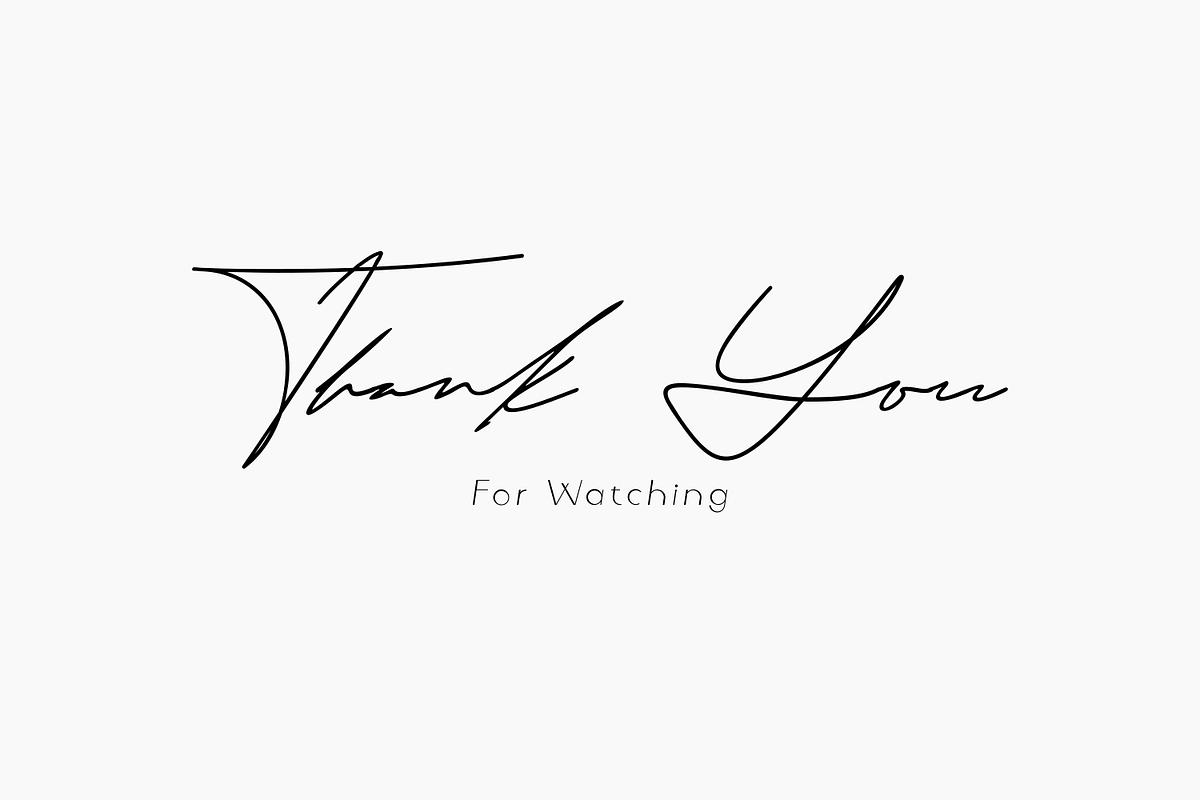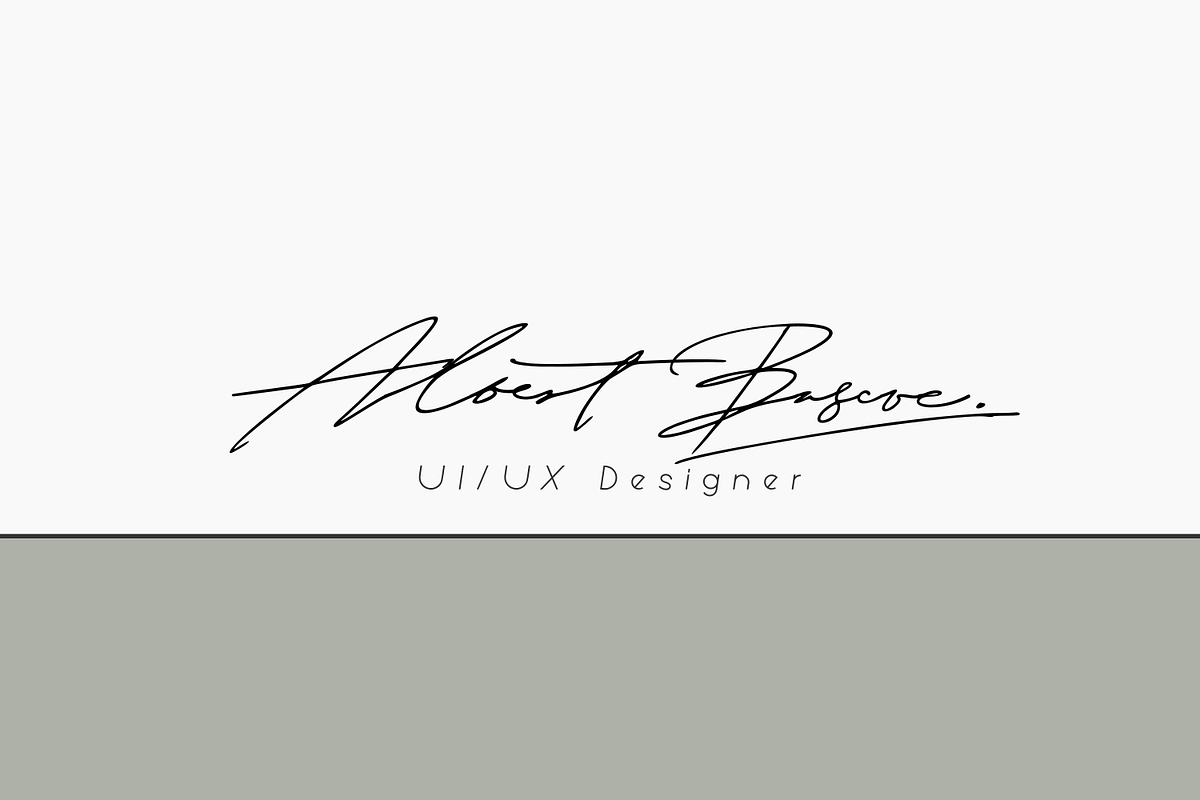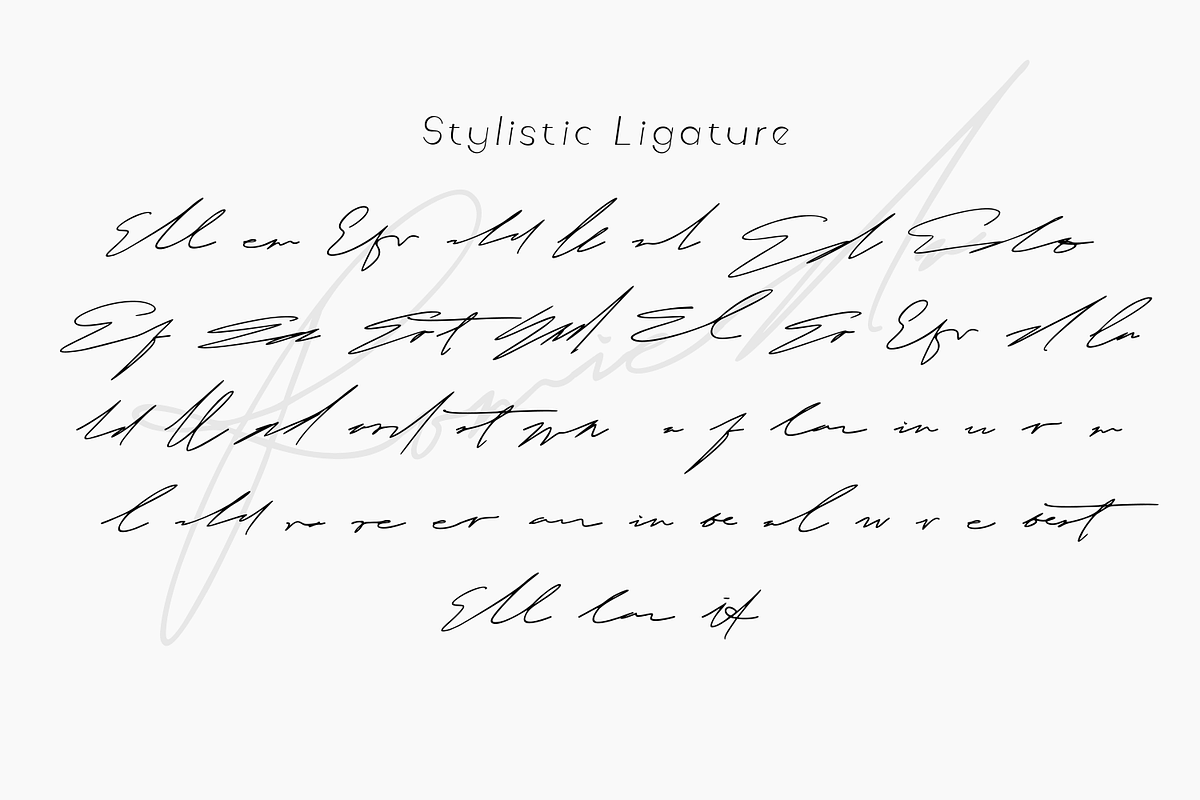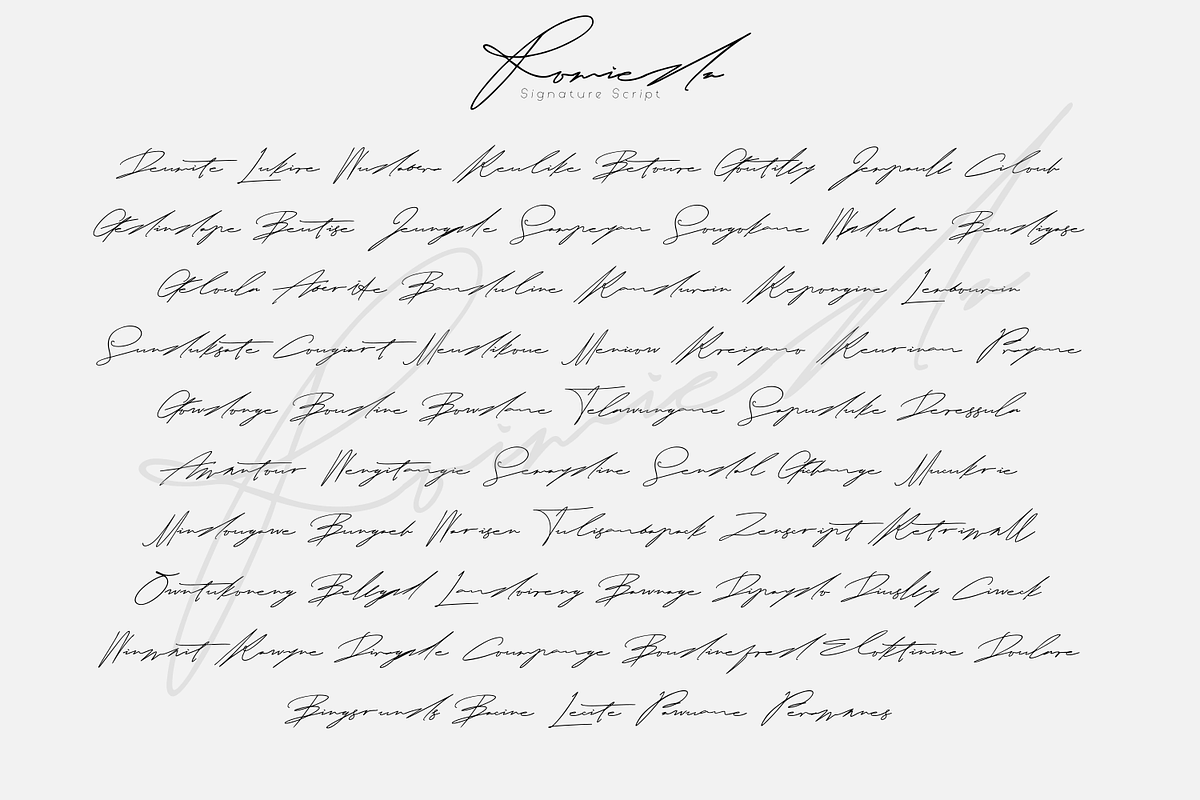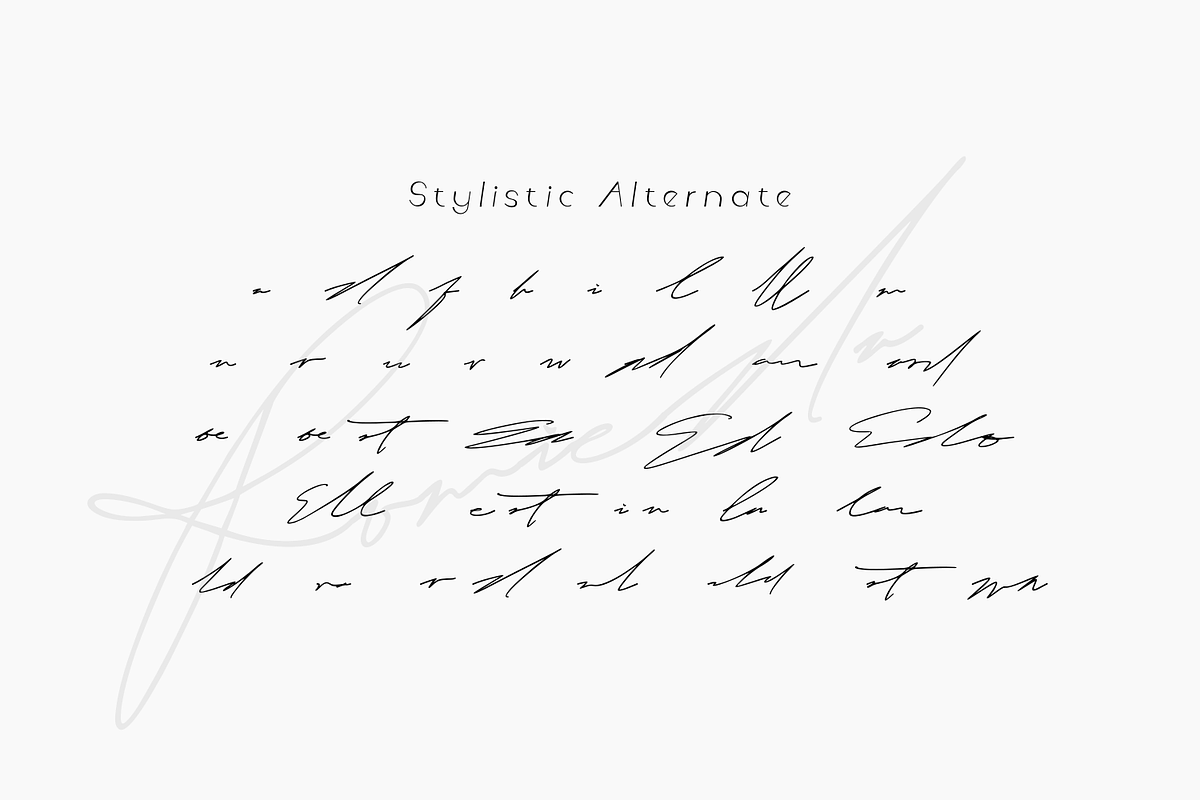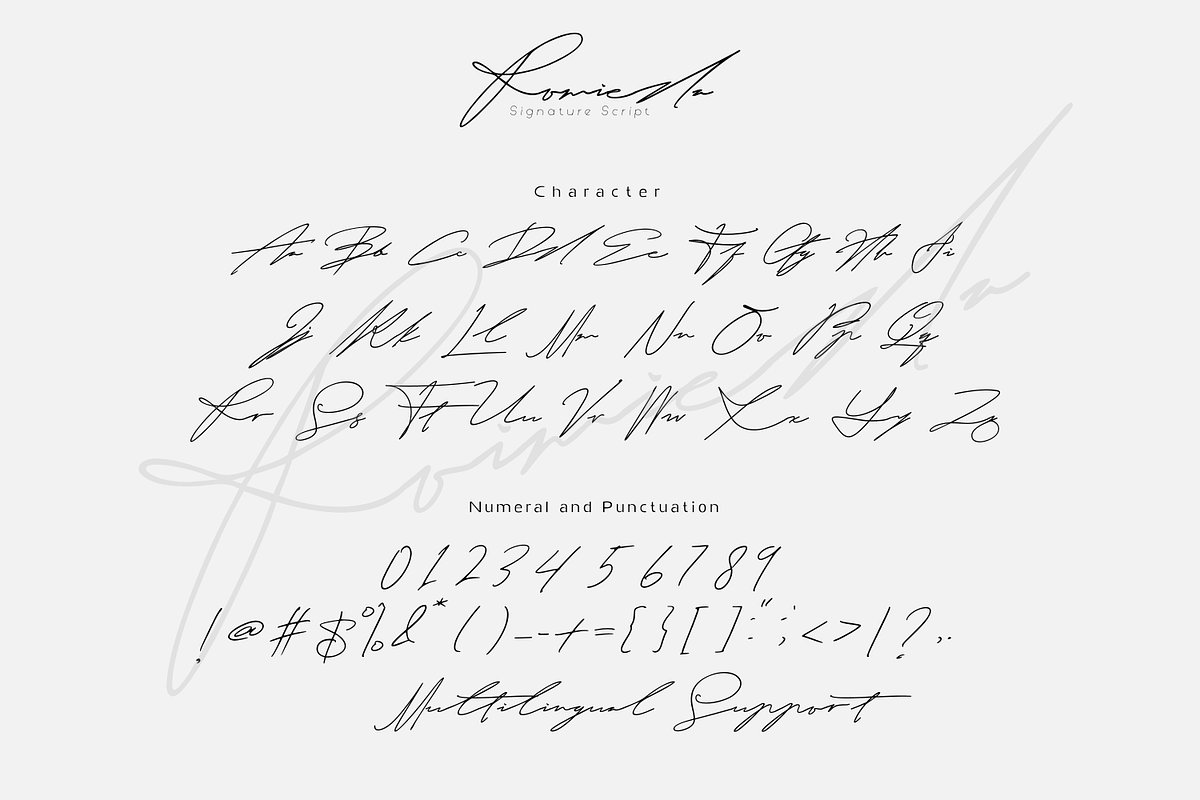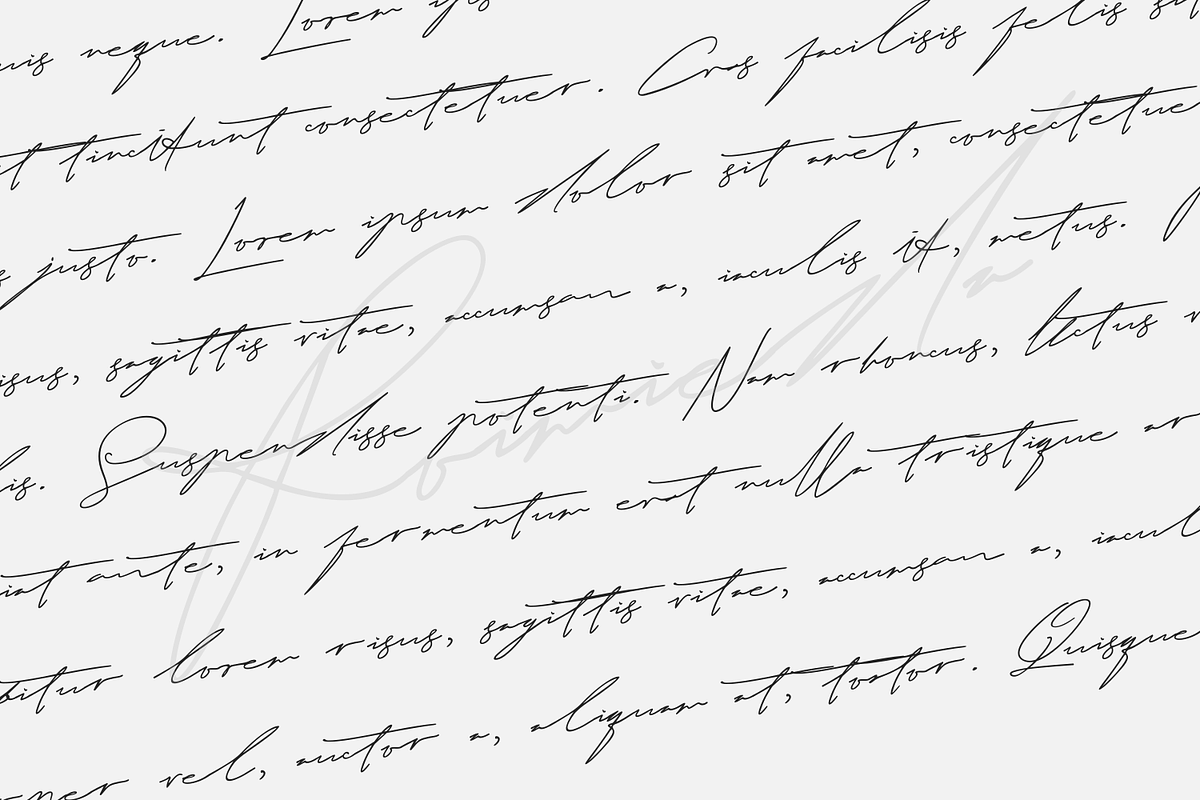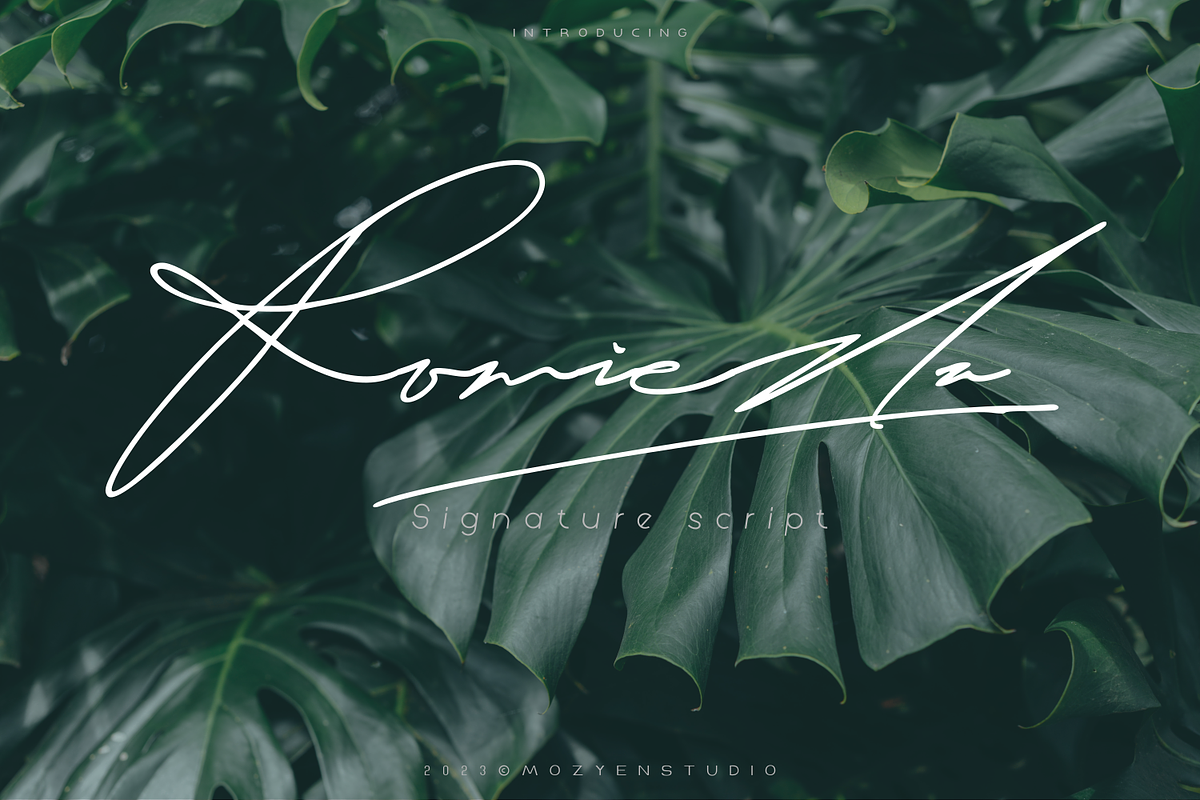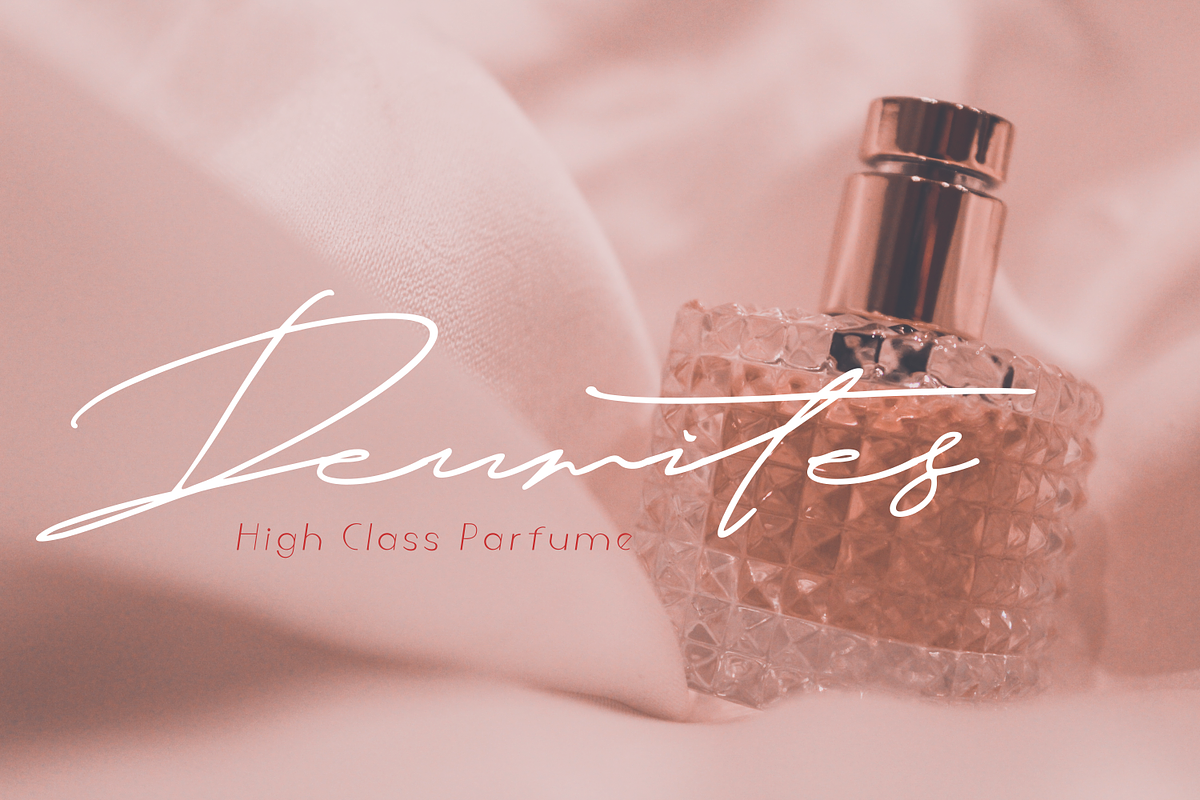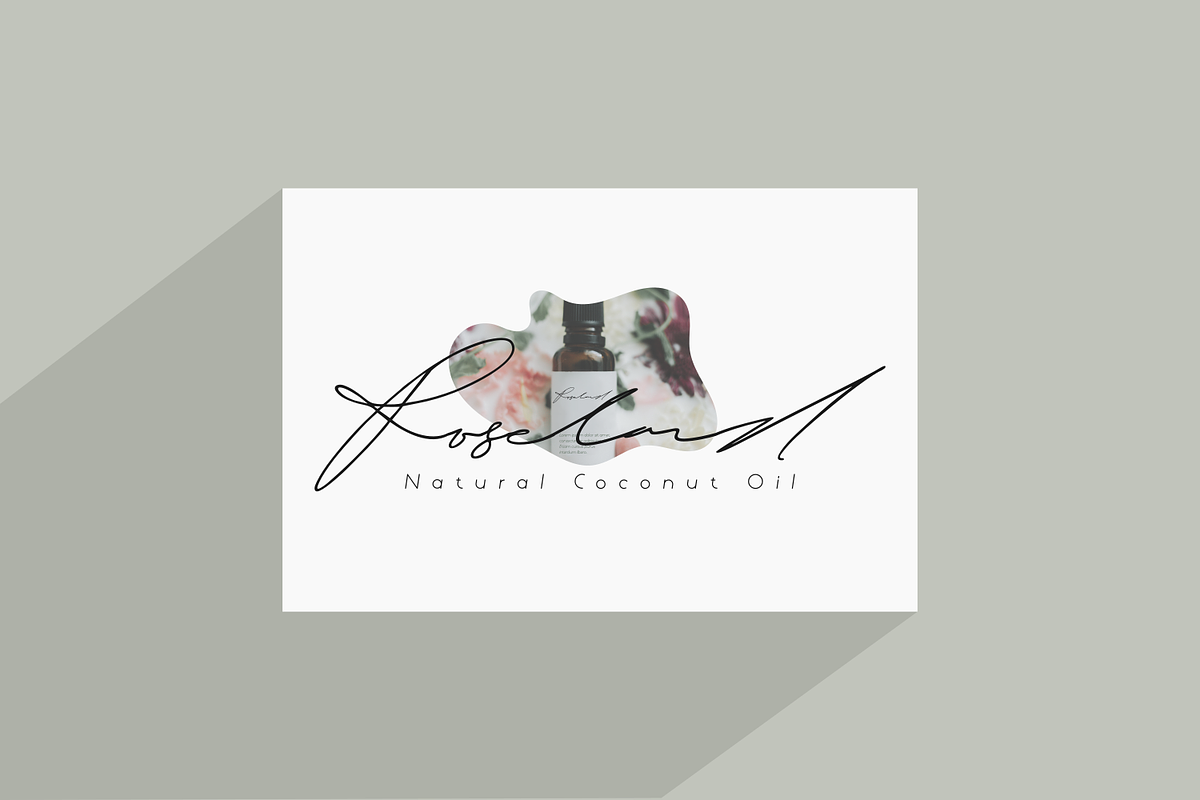
Romieda | Signature Script
Introduce Romieda Signature Script. This is perfect for your feminine design, you can also make a branding such as cosmetics products, Branding photography, invitation designs or your trademark. Romieda is an elegant and flowing handwritten font. It is PUA encoded which means you can access all of the glyphs and swashes with ease! It features a varying baseline, smooth lines, gorgeous glyphs and stunning alternates. It maintains its classy calligraphic influences while feeling contemporary and fresh. Fall in love with this font and bring your projects to the highest levels!
Available: -Uppercase -Lowercase -Numeral and punctuation -Multilingual support -Stylistic ligature : complete 2 ligatures and several 3 ligatures -Stylistic character alternate -access with PUA encoded.
Stylistic Ligature : Ell em Efr rld le rl Ed Edb Ef Ea Ert Ead El Er Efr d la ld ll ad ard rt wa a f lan in u r m l rld ra re er an in be al w v e bert lan id
Stylistic Alternate : Ed Edb Ef Ea Ert Ead El Er Efr d la ld ll ad ard rt wa a f lan in u r m l rld ra re er an in be al w v e lan h R